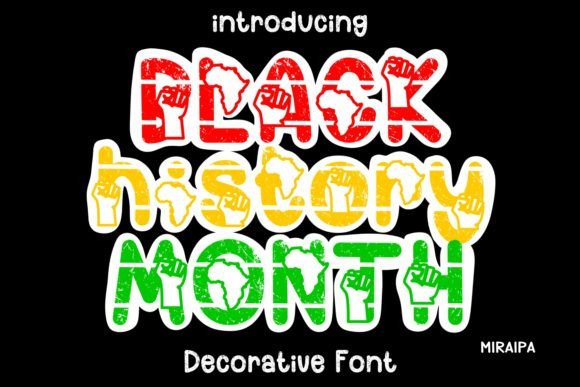
Embracing the Spirit of Black History Month with a Unique Font
As a designer, I’ve had my fair share of moments where I struggled to find the perfect font for a project. But one particular moment stands out in my mind – it was during Black History Month, and I was working on a DIY project to commemorate the occasion. I wanted a font that would not only be decorative but also respectful and celebratory. That’s when I stumbled upon the Black History Month Font, and it completely transformed my project.
A Font that Celebrates Black History Month
The Black History Month Font is a friendly and cool decorative font that is dedicated to this special month. Its unique design elements and features make it an excellent choice for any DIY project, from posters and flyers to social media graphics and more. With this font, you can add a touch of elegance and sophistication to your designs while paying tribute to the significance of Black History Month.
- ✨ Unique and decorative design that’s perfect for Black History Month projects
- ✅ Easy to read and understand, even at smaller font sizes
- 🎨 Offers a range of OpenType features, glyphs, and stylistic alternates to enhance your designs
While the Black History Month Font is an excellent choice, there are a few minor quirks to be aware of:
- 🤔 Some characters may require manual kerning to achieve optimal spacing
- ⚠️ Limited language support, so it’s best suited for English or similar languages
The Backstory Behind the Font
The Black History Month Font was designed with the intention of creating a unique and celebratory font for Black History Month. The designer aimed to create a font that would not only be decorative but also respectful and elegant. Through careful consideration of design elements and typography, the font was crafted to be both visually appealing and meaningful.
| What is the Black History Month Font? | The Black History Month Font is a decorative font designed specifically for Black History Month projects and celebrations. |